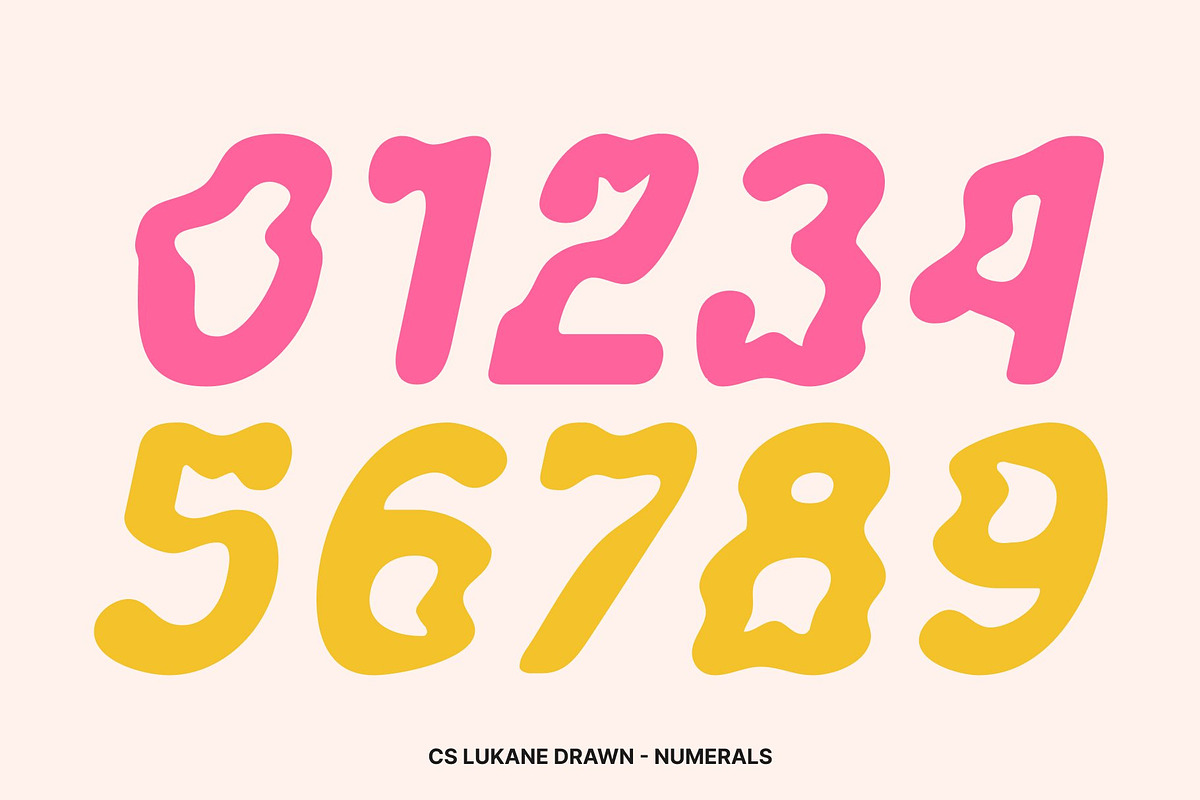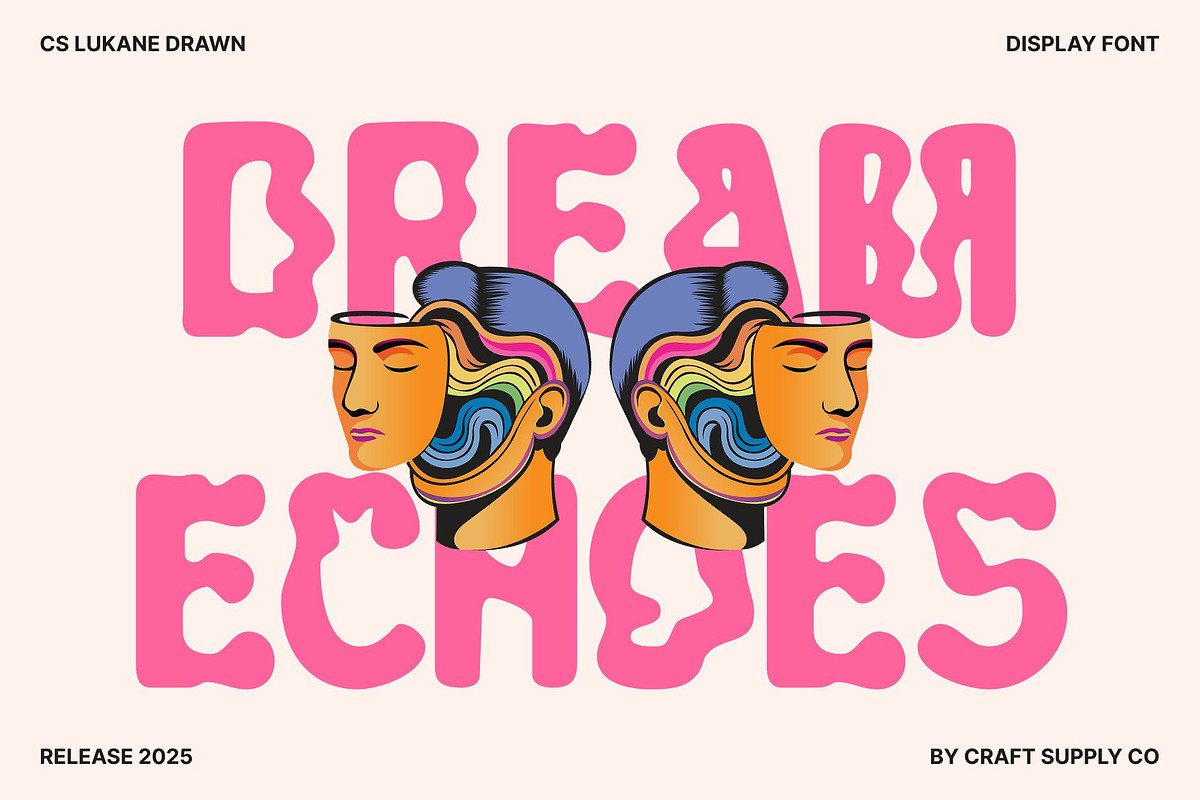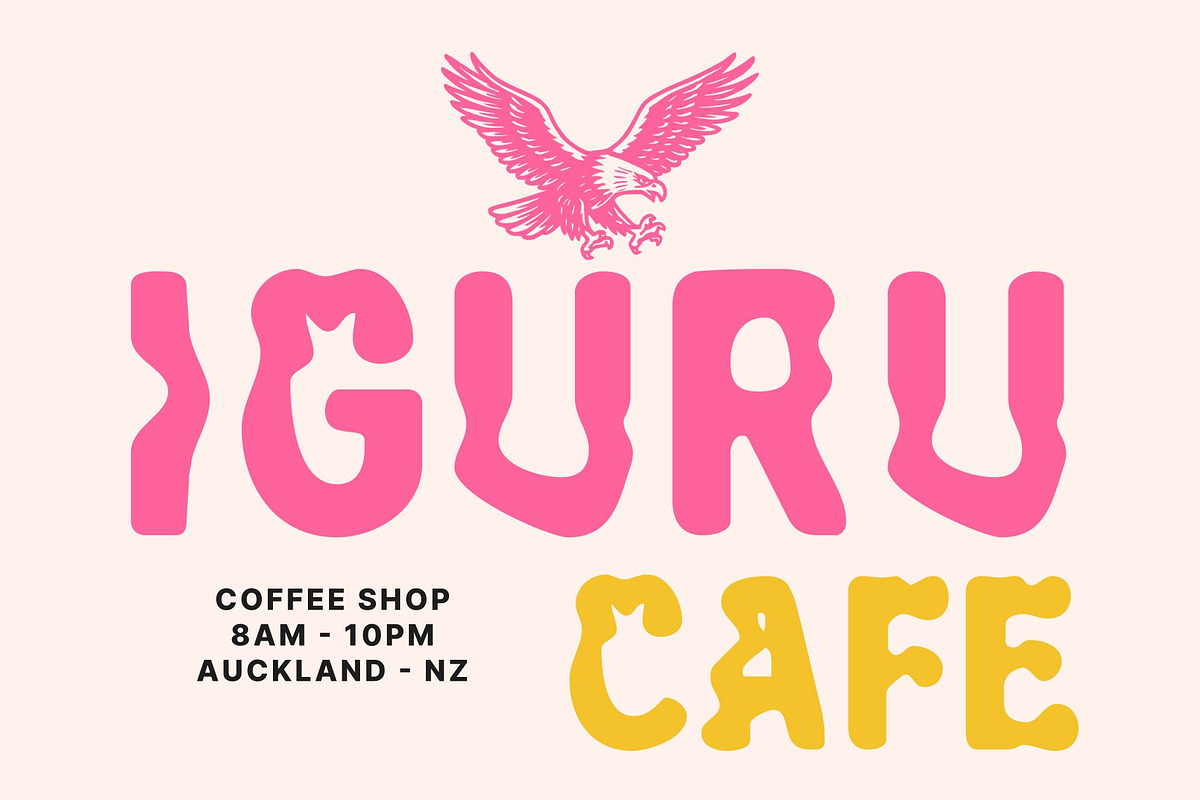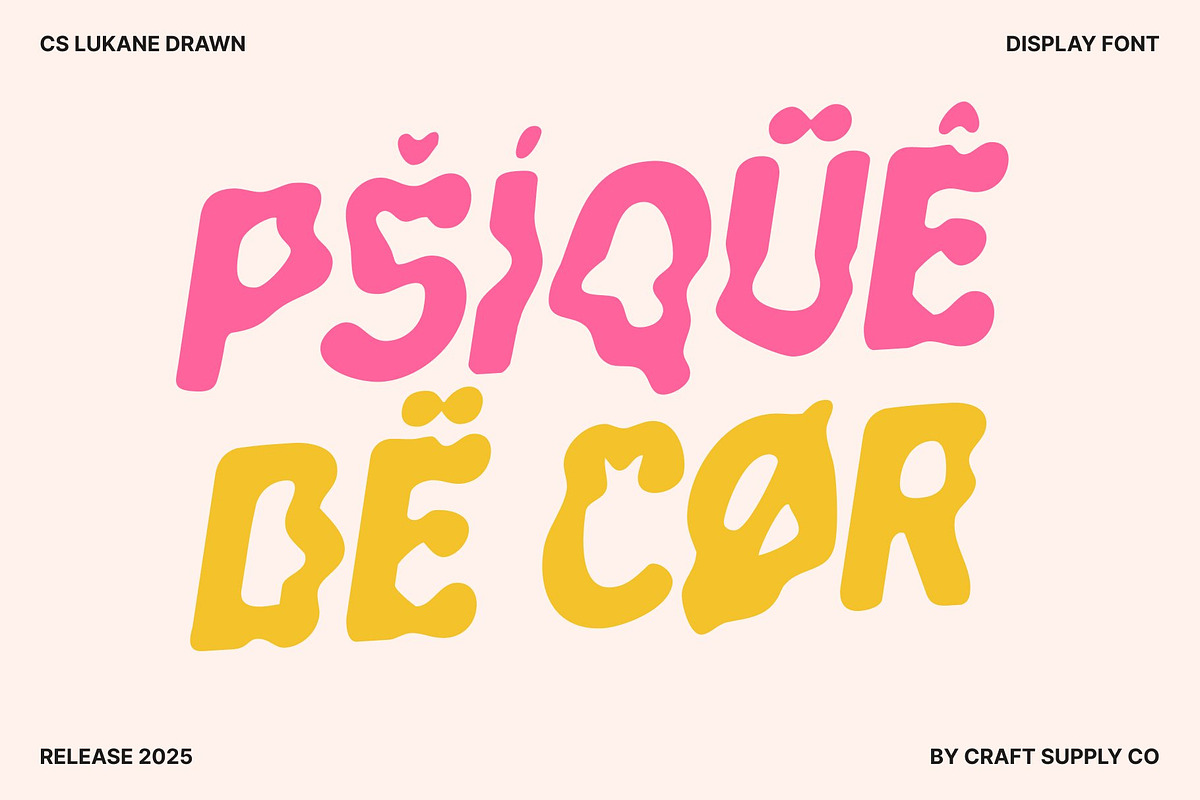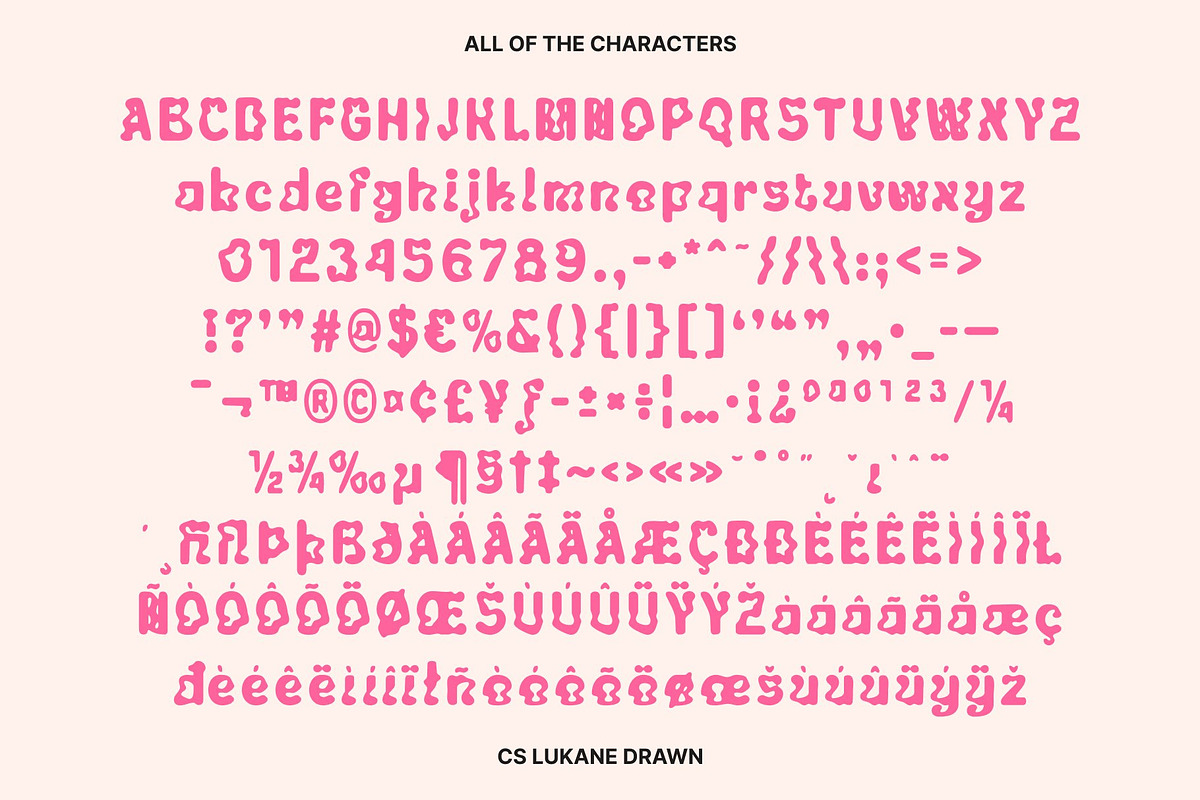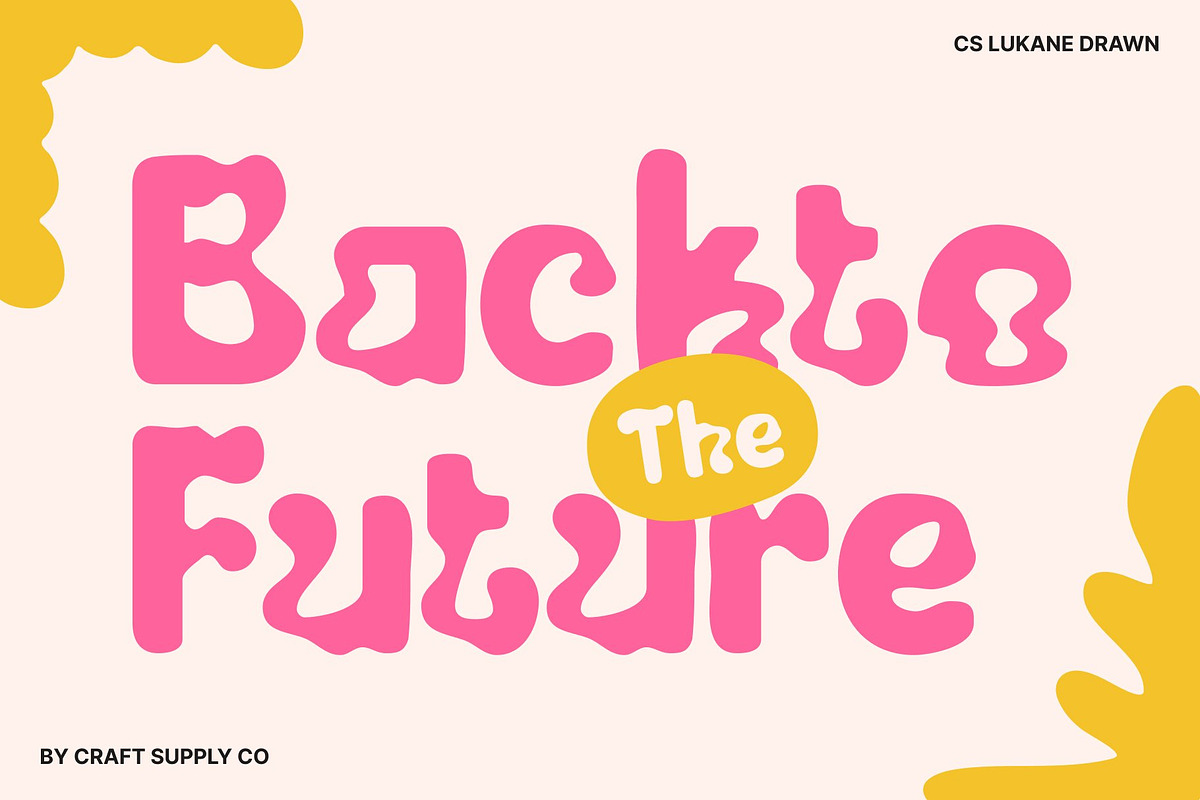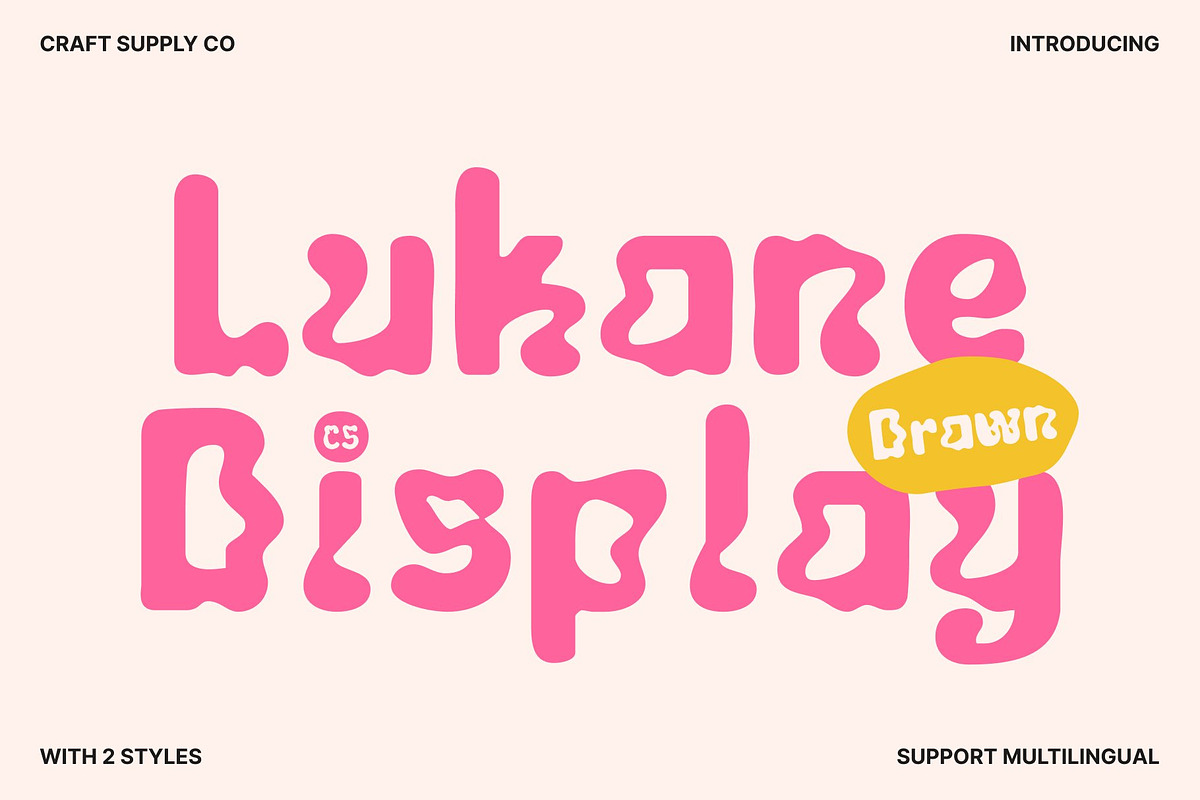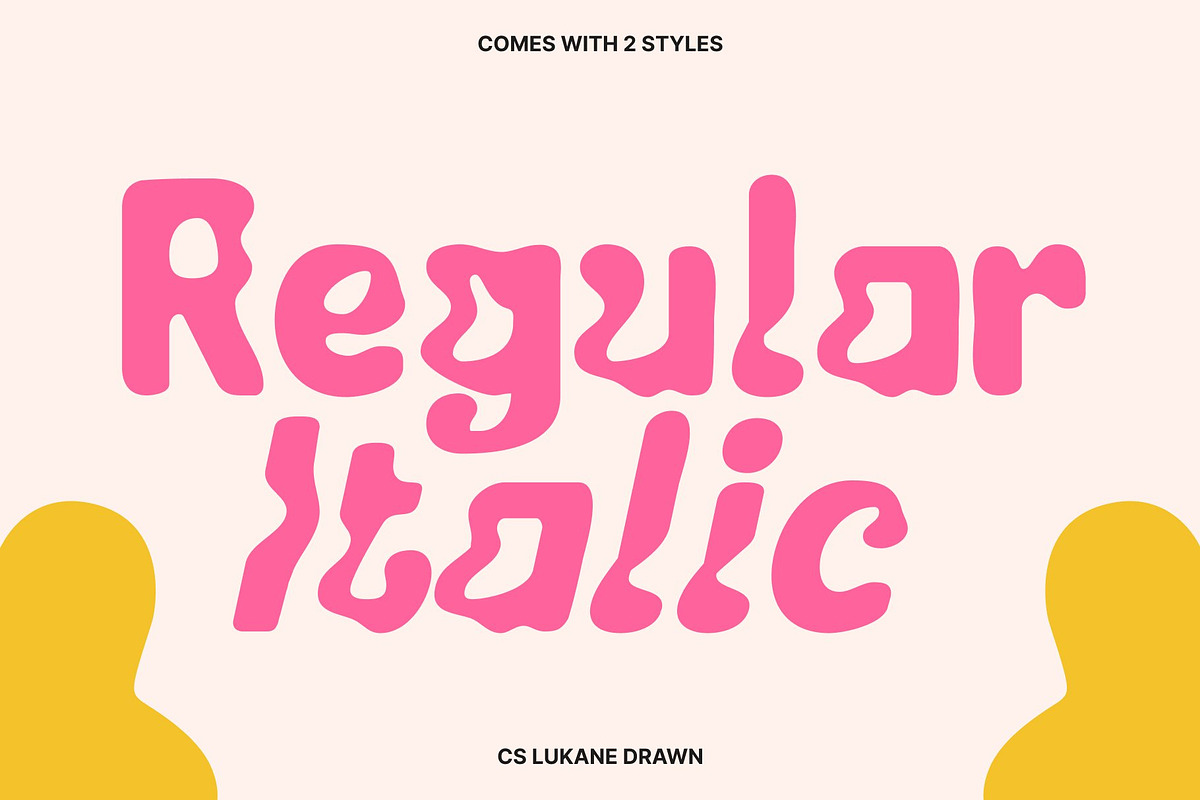
CS Lukane Drawn
CS Lukane Drawn – Psychedelic Display Font with Trippy Hand-Drawn Energy
A Trippy, Psychedelic Typeface for Bold and Experimental Designs This font brings a vibrant, mind-bending aesthetic to your creative projects. With its swirling psychedelic curves and visually playful forms, this display font captures the expressive spirit of trippy design. Every letter feels alive stretching, bending, and flowing in unexpected ways making it perfect for creators who want a font that stands out with bold artistic flair.
Hand-Drawn Personality for an Authentic, Funky Mood The hand-drawn effect adds a warm, organic edge to this font, giving each character its own expressive movement and texture. This handmade quality enhances its funky, experimental style, making the font feel fun, approachable, and full of personality.
Perfect for Music Branding, Posters, and Creative Visual Expression Designed to command attention, this font thrives in music branding, funky posters, festival artwork, creative merchandise, and playful editorial layouts. Its psychedelic vibe adds instant energy and character, making it an ideal choice for projects that celebrate freedom, creativity, and bold visual storytelling.
A Funky Display Font That Amplifies Colorful, Playful Design With its trippy forms and expressive drawn texture, this font transforms ordinary text into a dynamic visual experience. It captures the spirit of psychedelic culture and modern experimental design, offering a fun, lively, and unmistakably artistic typographic style.